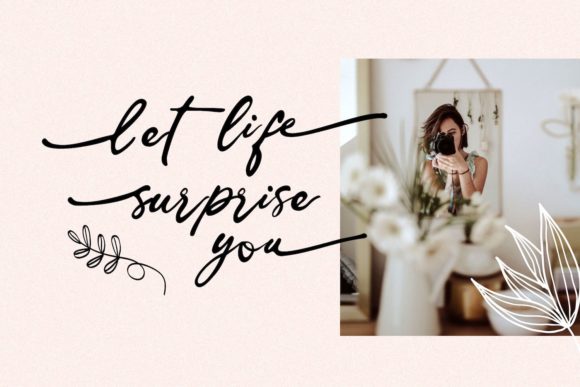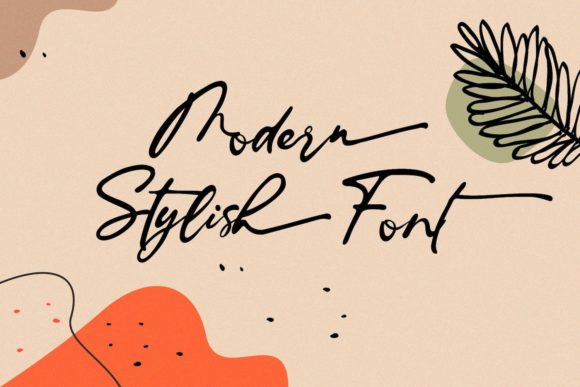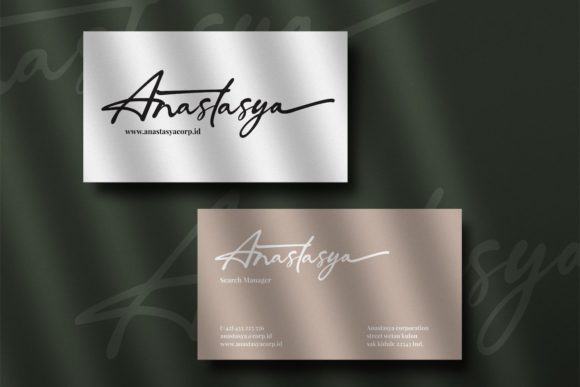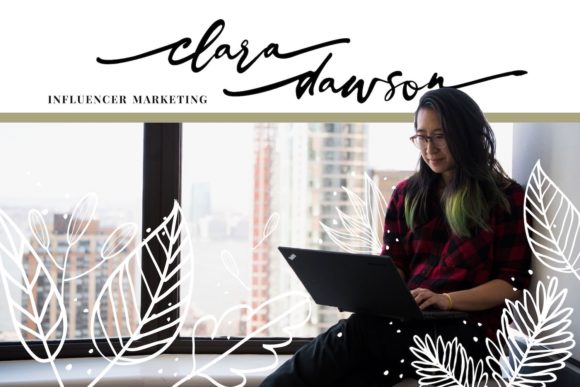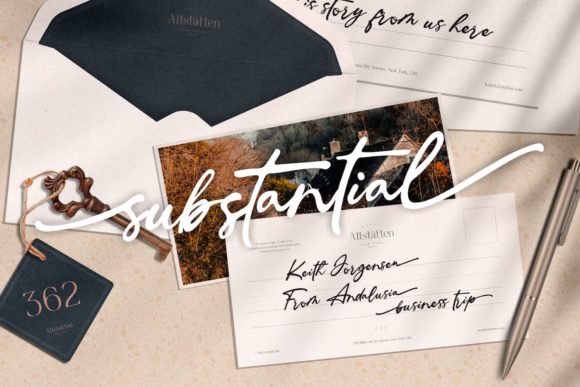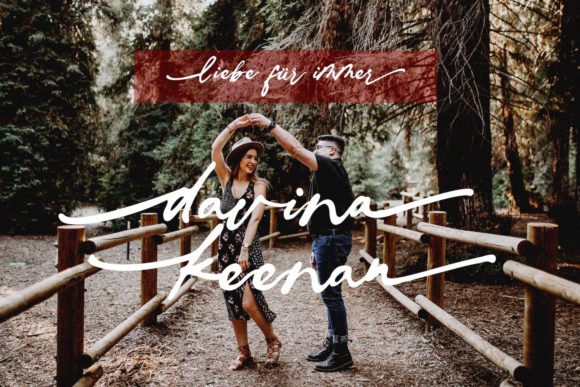
Introduction to Ingkar Janji Font
Ingkar Janji feels equally charming and elegant.
This stunning handwritten font is a stylish homage to classic calligraphy It will elevate a wide range of design projects to the highest level, be it branding, headings, wedding designs, invitations, signatures, logos, labels, and much more.
Key Features of Ingkar Janji Font
Why Choose Ingkar Janji Font?